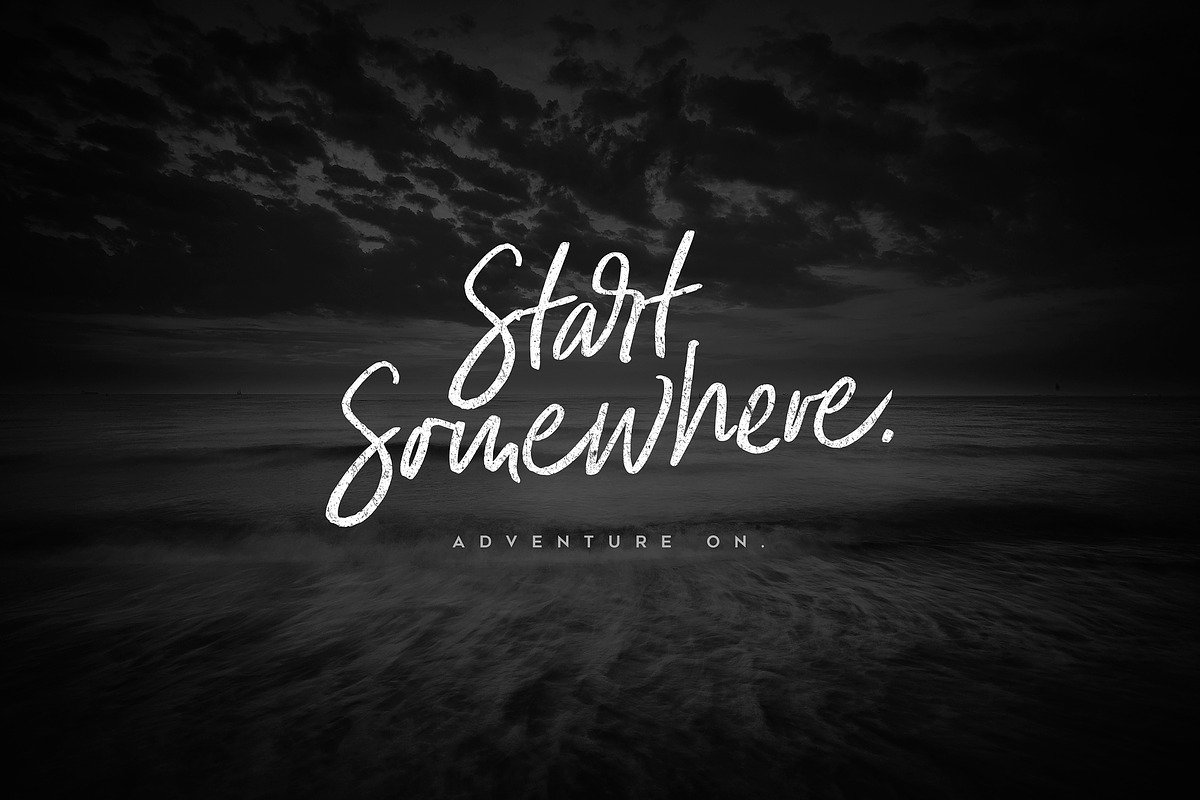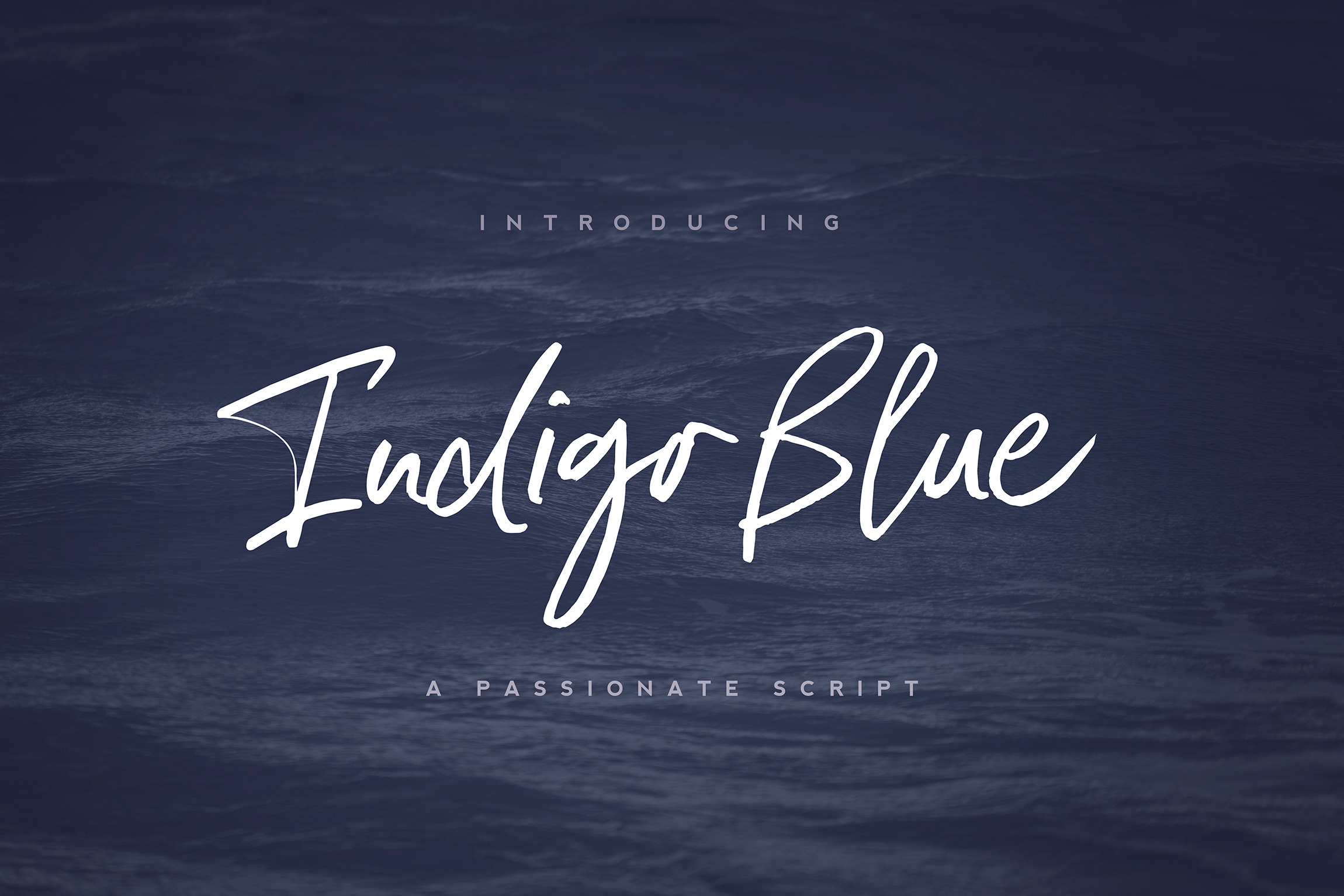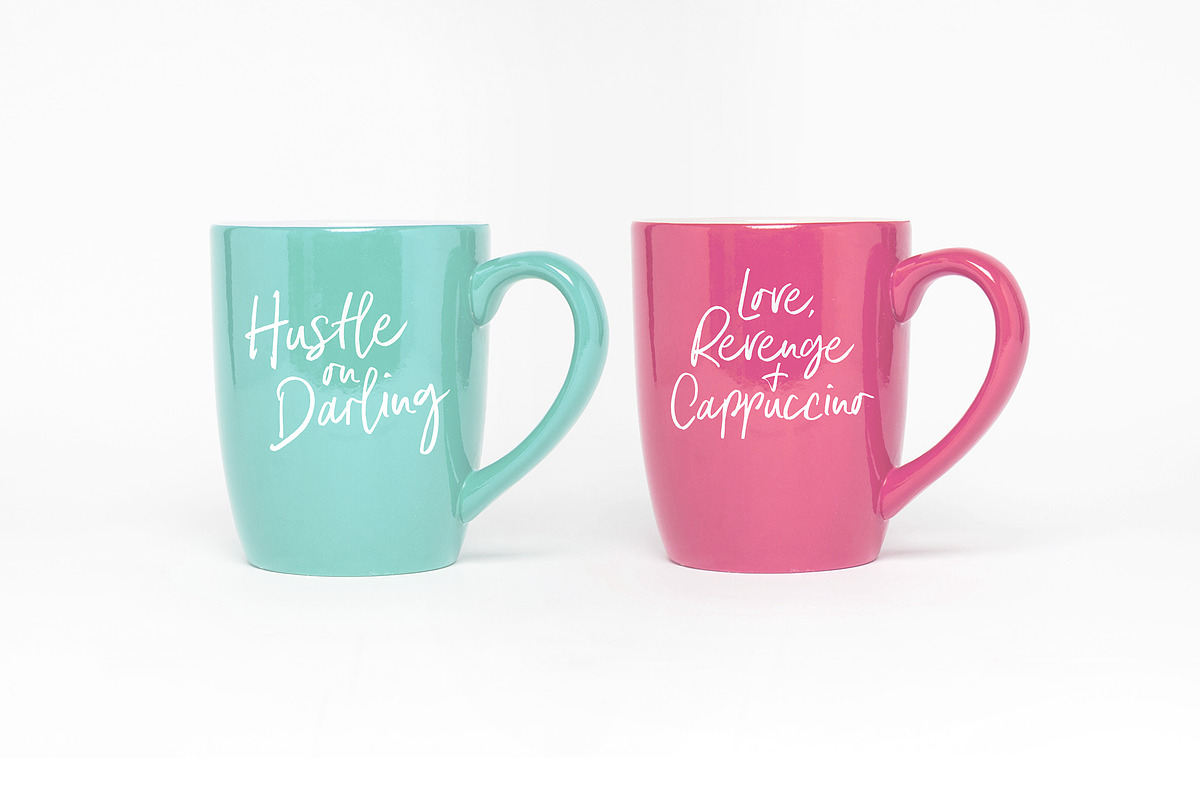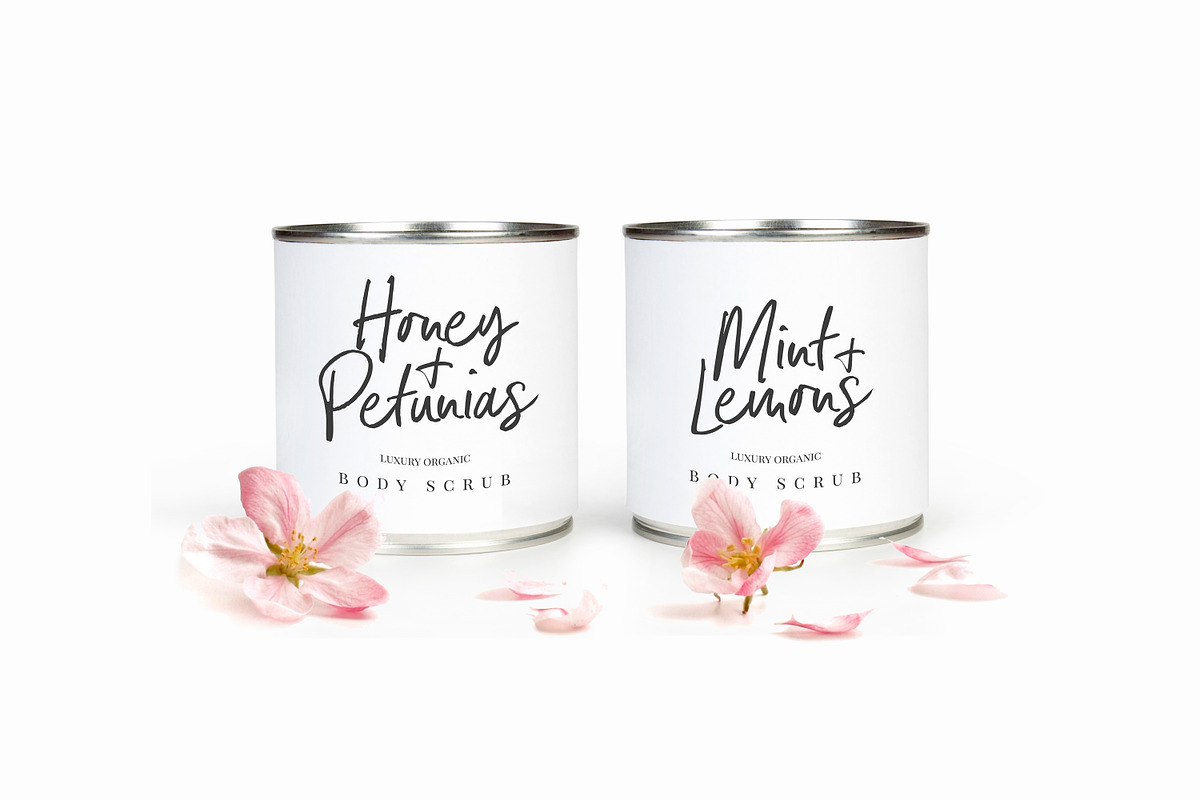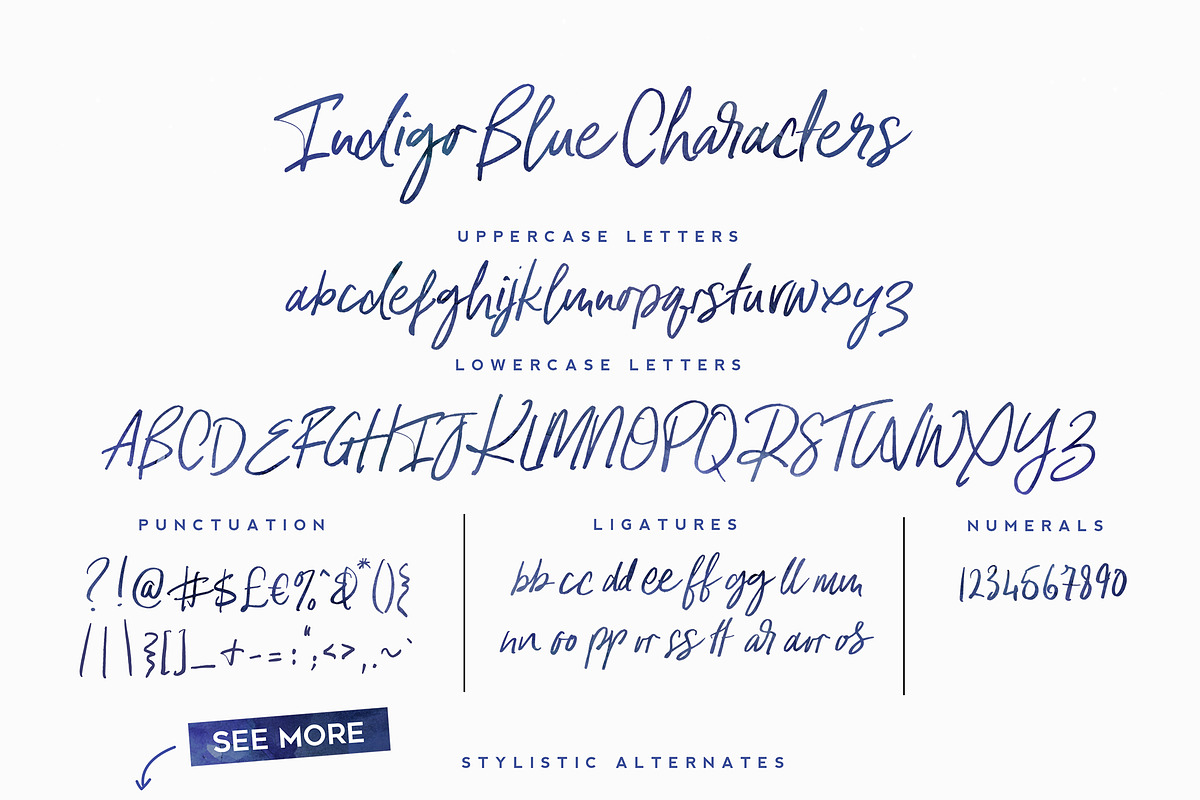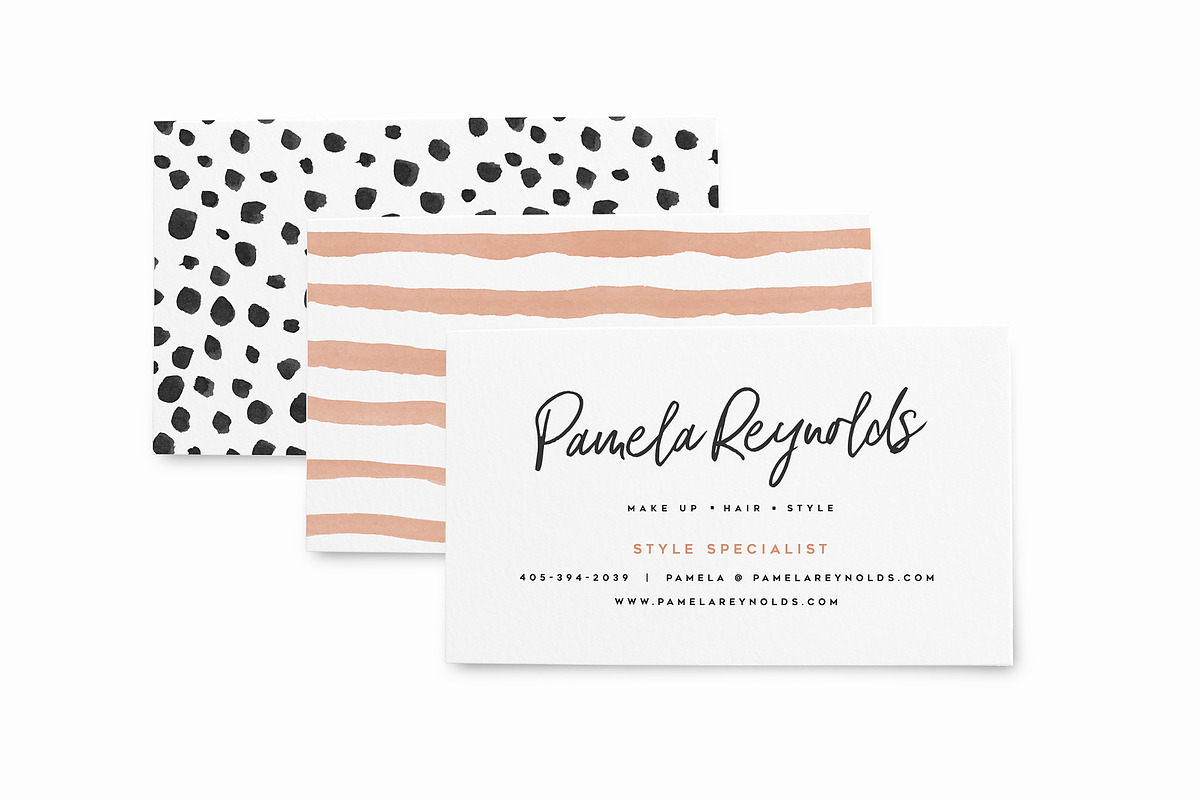
Indigo Blue Font + Swashes
Say hello to Indigo Blue. A charming new handwritten font with bonus swashes and TONS of character :)
Indigo Blue is coded with special Opentype Features to make it look even more natural than a standard font - it includes Standard Ligatures (custom double letters) and Stylistic Alternates ( alternate letters) for both the Upper and Lowercase letters.
A handy little Swash font is included as a bonus to add some punch to your designs :)
Feminine or Masculine - Indigo blue lends itself to many different styles and is essential to any serious designers font collection.
Perfect for Branding, logos, packaging, posters, business cards, apparel, t-shirts - you name it.